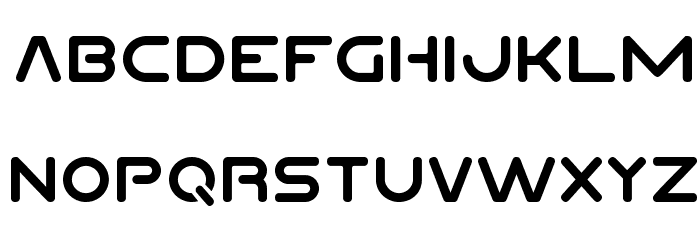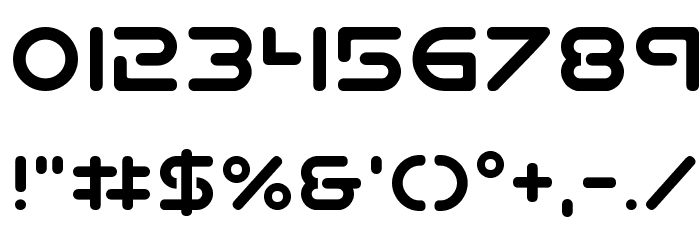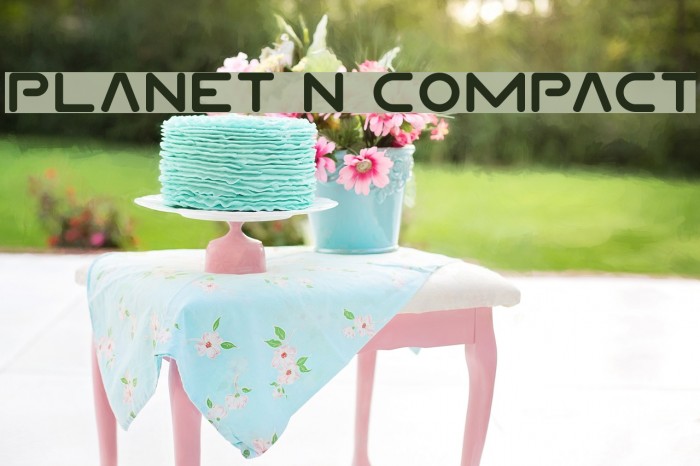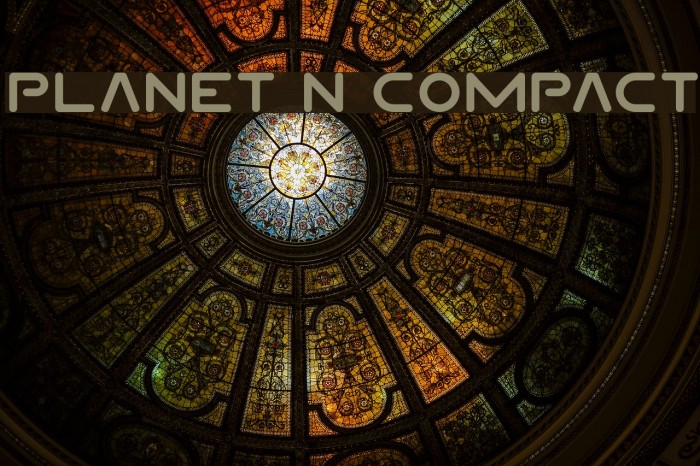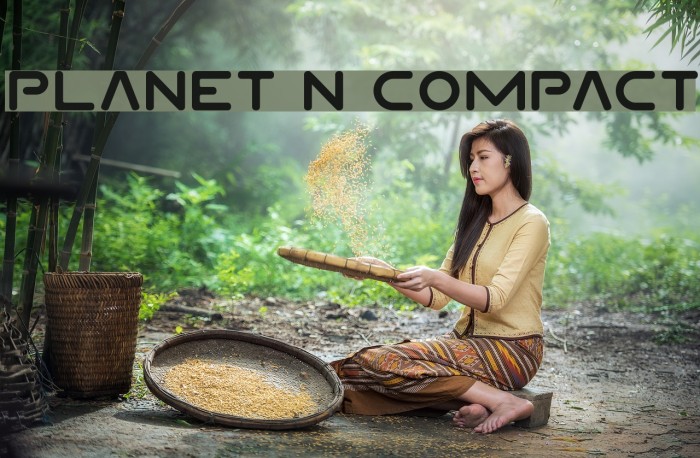
Planet N Compact Font
This font features a futuristic and geometric design, characterized by rounded edges and uniform stroke widths. The letters are bold and compact, with a consistent height that gives a cohesive appearance. The design is clean and modern, with a slight technological feel, making it suitable for digital and tech-related projects. The numbers and special characters maintain the same aesthetic, ensuring a seamless integration across different uses. The font's distinct style is both eye-catching and legible, making it versatile for various applications.
A futuristic, geometric font with rounded edges and uniform strokes.
- Proposed Projects: Ideal for technology branding, digital interfaces, sci-fi themed designs, and modern advertising.
- Use Case: Headlines, Logos, Digital Interfaces